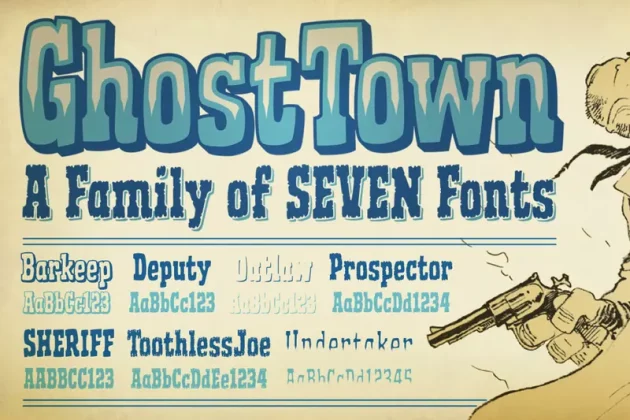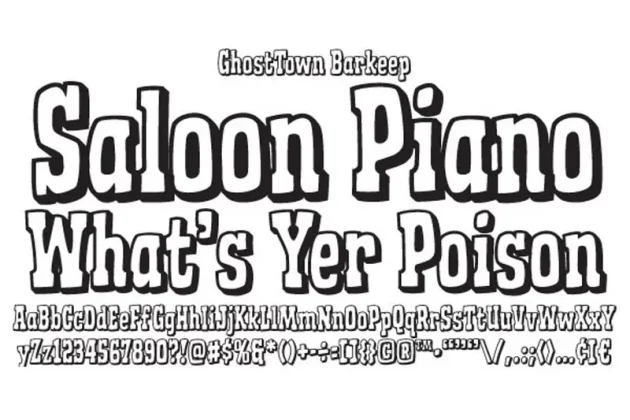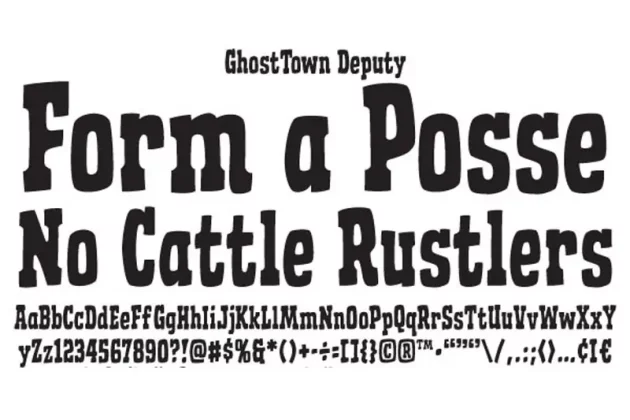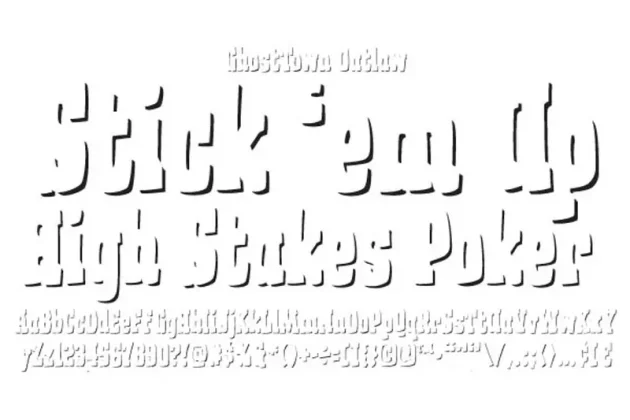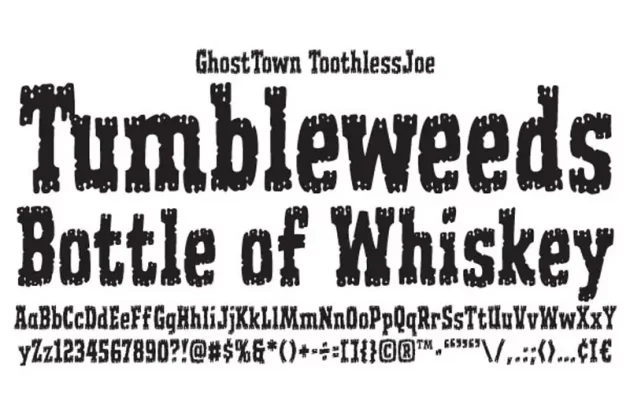
Ghost Town – old west poster font
About Ghost Town – old west poster Font
The Gold Rush is over, the prospectors have made their fortune and the mine has been worked out! The inhabitants of Boomtown USA have moved on — the saloon is dry, the sheriff has hung his hat and the only visitors to the local whorehouse are tumbleweeds.
Yeah, the buildings remain — hollowed out husks carrying memories of bar room brawls, high noon shootouts and high stake poker games between outlaws — but if you take a walk down the street be careful not to kick up too much dust… Turn the corner and you might see Ol’ Toothless Joe standing on the corner sucking on a bottle of whiskey… And don’t walk too slowly past the storefront of the undertaker — that guy made his living putting strangers like you in a wooden overcoat from sunrise to sundown.
Spooks and Spectres linger everywhere… there’s a sign just down the road — didn’t you see it? “Ghost Town! Abandon Hope all who Enter Here!”